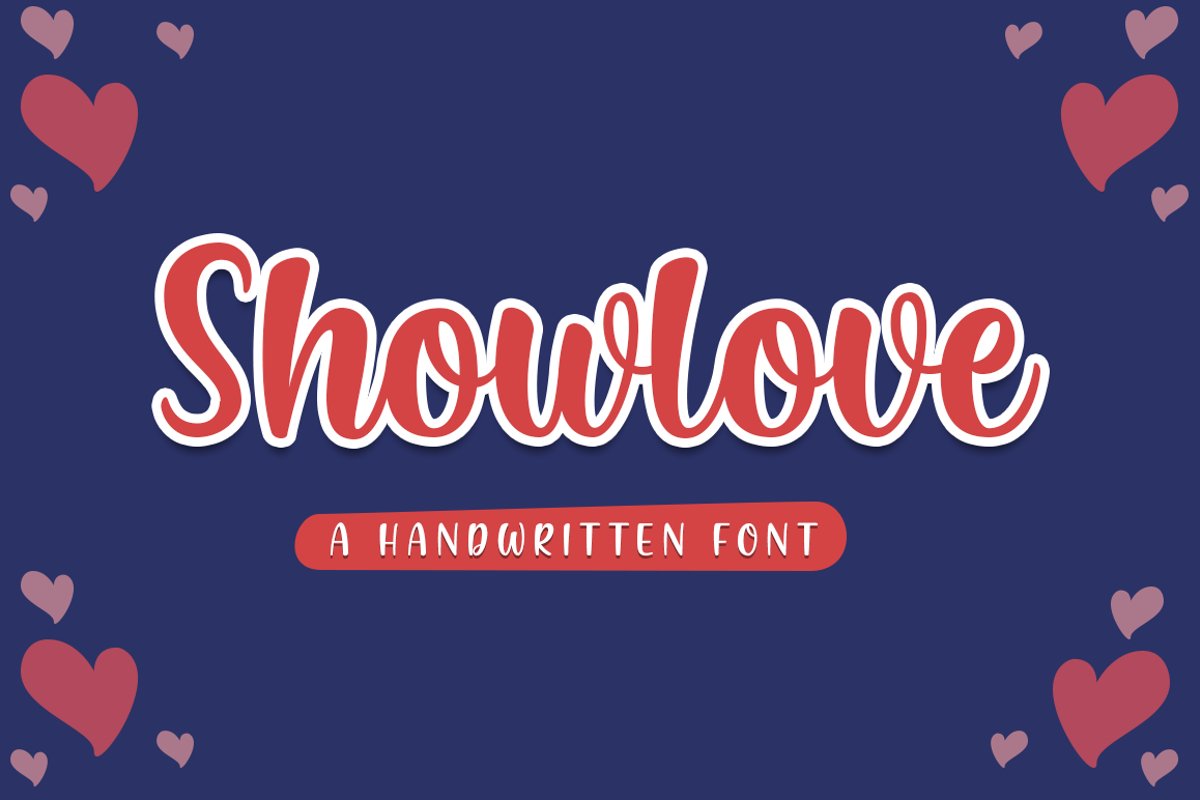
Showlove - a lovely font
Showlove is lovely and  funny handwritten font. This font includes full of Alphabetical glyphs, Numerals, and punctuation. This is so perfect for invitations, branding, crafting or logotype.